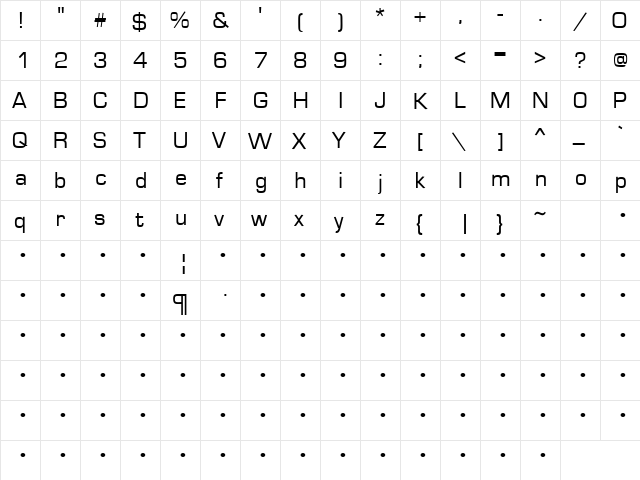
QTEurotype Regular
Design Context for QTEurotype Typeface
QTEurotype takes a measured approach to typography — its balanced proportions and neutral character make it a reliable workhorse for both digital and print work.